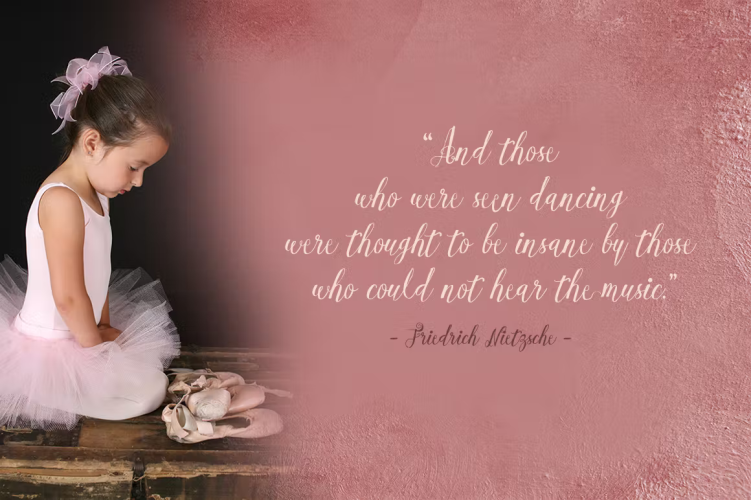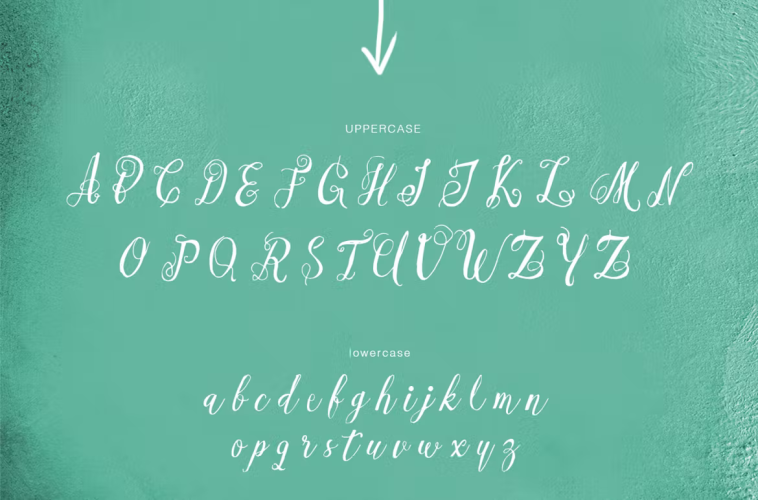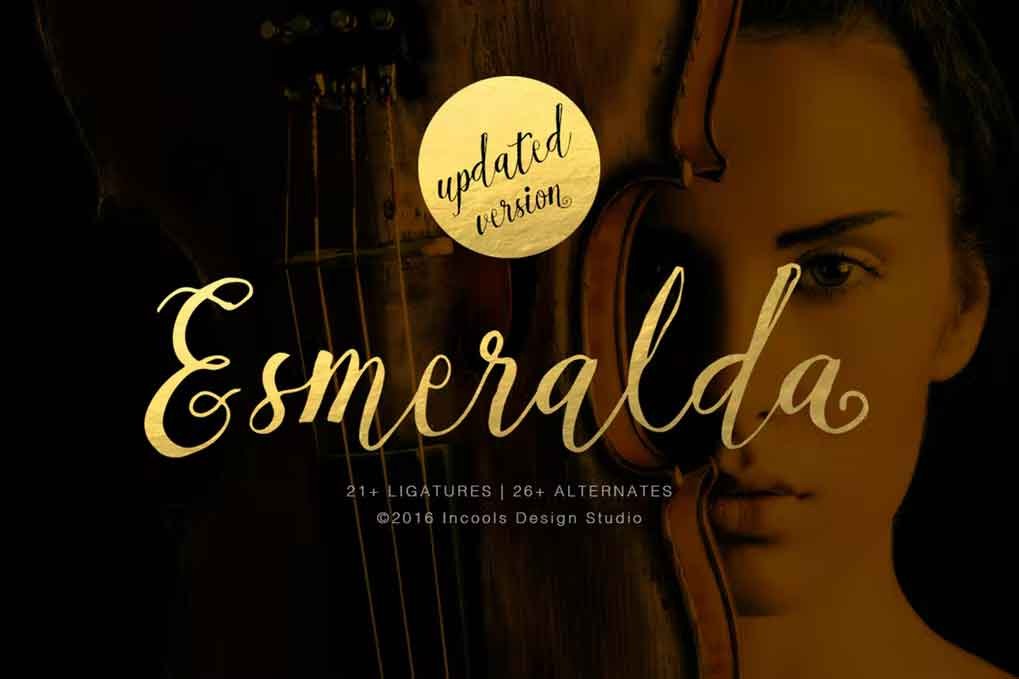
Esmeralda Font
Esmeralda is neoclassical decorative script font. It was created as imperfect, hand drawn characters and an irregular baseline. Esmeralda is really suite for beautiful b…
Where Esmeralda Font works best
A short phrase in Esmeralda Font carries warmth that a typeset sans cannot fake; keep the rest of the card plain.
Chalkboard-style headings in Esmeralda Font make a menu feel hand-made. Keep the dish descriptions in a simple face so prices stay readable.
One line of Esmeralda Font over a photo is enough; the script carries the tone and the caption does the work.
What kind of work does Esmeralda Font suit?
It sits in the Script And Handwritten group and reads as branding, decorative, handwritten, script. That makes it a candidate wherever those qualities help: headings, packaging, social graphics and brand work. Set it at the size you plan to use before deciding.